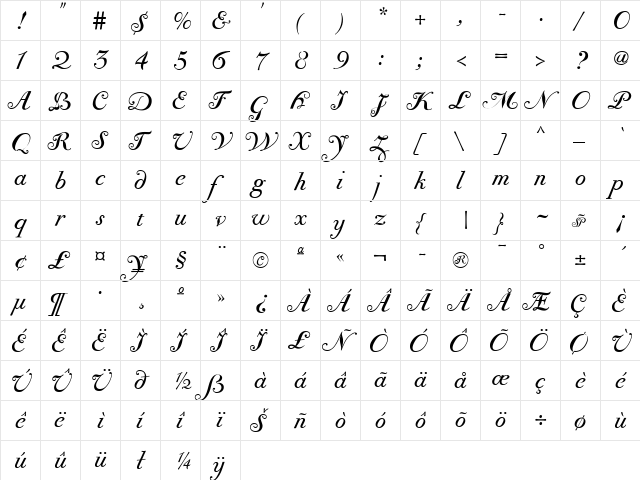
BodoniClassicChancery Regular
Design Context for BodoniClassicChancery Typeface
BodoniClassicChancery wears its vintage influences proudly, with letterforms that recall mid-century signage, classic packaging, and nostalgia-driven design.
Font Pairing: Combine BodoniClassicChancery with a simple slab or neutral sans — period-accurate companions reinforce the vintage feel without competing for attention.
Pro Tip: Lean into BodoniClassicChancery's period character by pairing it with aged paper textures, muted colour palettes, and vintage illustration styles.